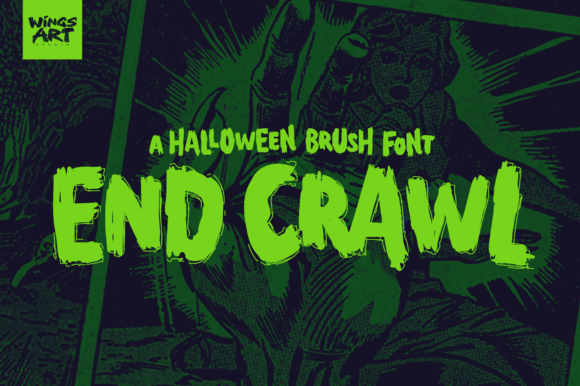
Unleashing the Horror: Introducing End Crawl Font
You’re huddled in your dimly lit room, surrounded by flickering candles, and the TV is playing a grainy VHS tape of your favorite horror classic. The words “The End” appear on the screen, and your heart skips a beat as the credits roll. It’s that moment of pure, unadulterated terror that inspired the creation of End Crawl Font – a hand-drawn brush font that embodies the raw, unsettling energy of the horror movies and comic books of the 1970s and 80s.
With its textured all-caps design and bold, painted look, End Crawl Font is the perfect tool for designers looking to craft a sense of unease and suspense in their projects. Whether you’re working on a horror-themed movie poster, a creepy comic book cover, or a haunting typography piece, End Crawl Font offers the means to leave your readers on the edge of their seats.
End Crawl Font Key Features
- Font Family: A custom-designed sans-serif font, specifically created for end credits and title sequences.
- Unique Characteristics: The font features a distinctive, stylized design with a subtle flair at the ends of characters, creating a dynamic and eye-catching effect in end credits and title sequences.
End Crawl Font Review
As a designer, I’ve had the chance to experiment with the End Crawl Font, and I must say it’s a unique addition to any project. ✨ One thing that stands out is its distinctive, retro-inspired aesthetic. It’s perfect for adding a touch of nostalgia to your designs, especially in projects that involve film or video.
Another advantage of the End Crawl Font is its versatility. It’s suitable for both digital and print media, making it a great choice for designers who need a font that can adapt to different formats. ✨ The font also includes a wide range of characters, including symbols and punctuation marks, which adds to its overall appeal.
- ⚠️ The font may not be suitable for all types of projects, especially those that require a more modern or minimalist aesthetic.
- ⚠️ Some users may find the font’s distinctive style a bit too over-the-top, which could be a drawback for those who prefer a more subtle approach.
Overall, I think the End Crawl Font is a great choice for designers who are looking to add a unique touch to their projects. While it may not be the best fit for every project, it’s definitely worth considering for those who want to stand out from the crowd.
The End Crawl Font is commonly used in film and television credits, as well as in other creative projects where a stylized, cursive font is desired.
Alternatives to End Crawl Font
Playfair Display is an elegant and luxurious font, perfect for adding a touch of sophistication to your design. It’s ideal for use in titles, headings, and other high-impact text elements. Compared to End Crawl Font, Playfair Display has a more refined and ornate feel, making it suitable for premium and high-end branding.
Great Vibes is a modern and stylish font with a friendly, approachable feel. It’s great for use in body text, captions, and other supporting text elements. Unlike End Crawl Font, Great Vibes is more versatile and can be used in a variety of contexts, from digital interfaces to print materials.